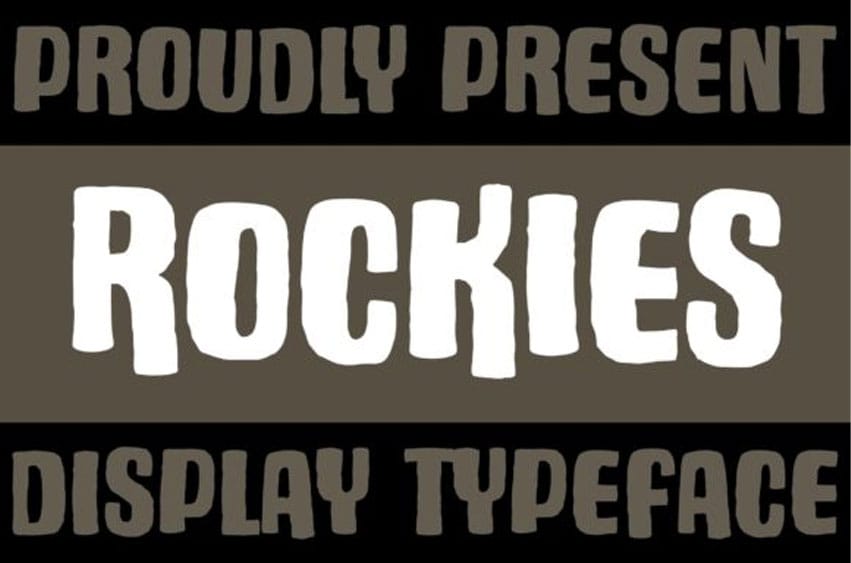
Rockies Font is a rough display font. Whether you’re looking for fonts for Instagram or calligraphy scripts for DIY projects.
Rockies will turn any creative idea into a true piece of art!